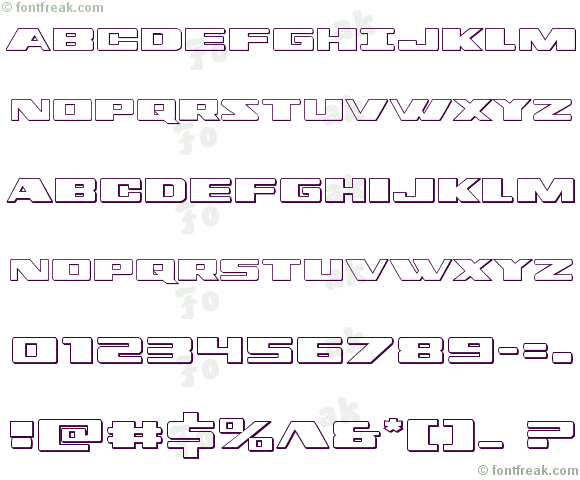
Dassault Outline Regular
Dassault Outline Regular, designed by Daniel Zadorozny, is a striking display font that falls within the category of decorative typefaces. This unique font features an outlined design that emphasizes its bold presence, making it an eye-catching choice for various creative projects. The stroke weight is consistent, providing a strong visual impact while maintaining a clean and modern aesthetic. The spacing between characters is well-balanced, enhancing readability without compromising style.
This font is perfect for a variety of use cases. Its bold outlines make it an excellent choice for eye-catching movie posters, where dramatic text can draw attention to the film's title. Additionally, it works wonderfully for branding and logo design, helping small business owners establish a memorable identity. The unique style of Dassault Outline Regular also lends itself well to promotional materials, such as flyers and advertisements, where a standout font can convey a strong message. Lastly, it can be effectively used in creative digital content, appealing to content creators looking to enhance their visual storytelling.
The target audience for this font includes graphic designers seeking innovative type solutions, small business owners wanting to create distinctive branding, and content creators aiming to elevate their projects with a bold typographic statement.